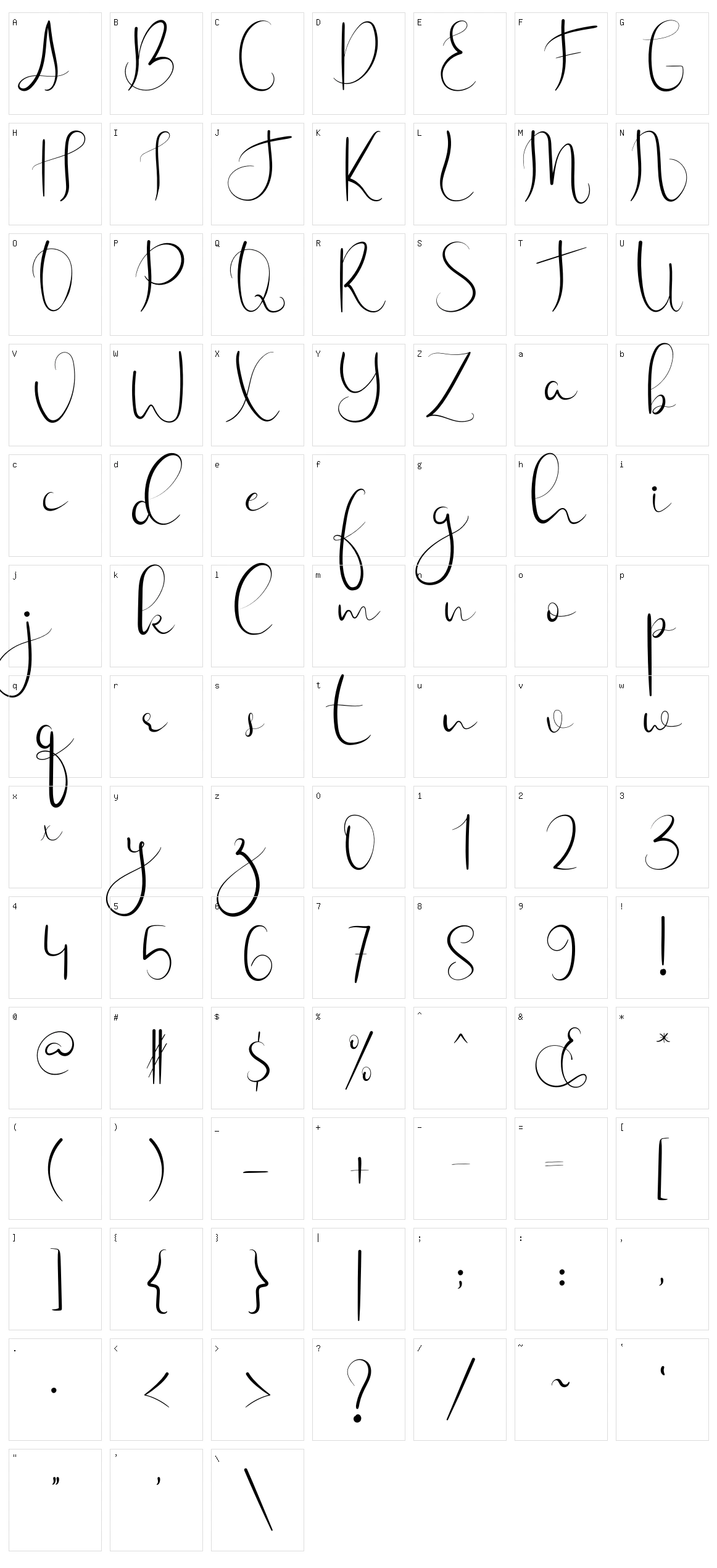
The free font Hunting Star is carefully designed by Edric Studio, showcasing a thoughtful balance of creativity and usability and falls under the Script font style. When you download the ZIP file, it contains only 231.1 KB of font files, making it lightweight and quick to download. Please review the license details below to understand permitted usage and distribution rights. If license information is not available, we recommend using this font for personal projects only or contacting the author directly for commercial usage permissions.